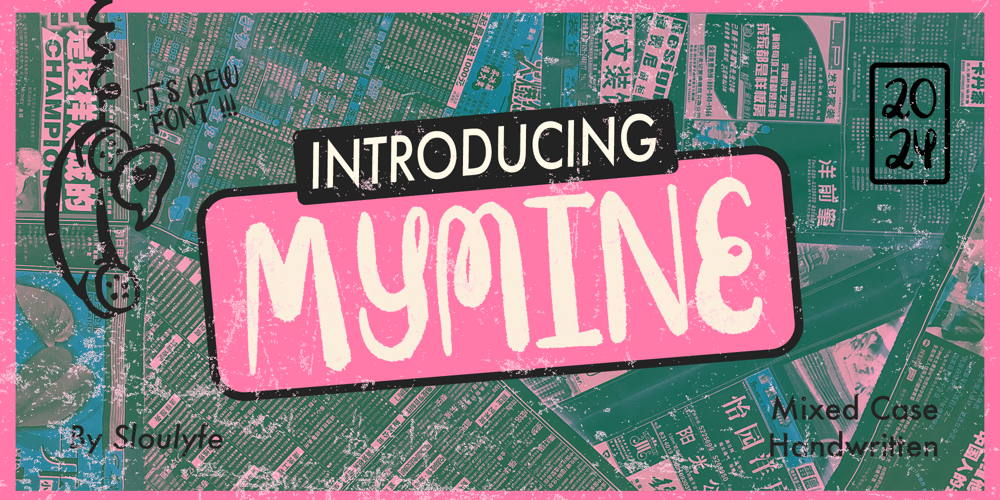
Mymine Font Family was designed by Amelia Dian Isnaini and published by Sloulyfe Studio. Mymine contains 1 styles and family package options. Nostalgic for 2000s texting? Mixing uppercase and lowercase was the cool thing to do. Wasn’t it fun?Introducing Mymine, the embodiment of that vibe. Organic handwritten display fonts that give you the freedom to play without restrictions. Express yourself without the worry of appearing tacky—still catchy!What’s inside? Uppercase & Lowercase Number & Punctuation Ligature Option PUA Encoded & Multilingual Support Stay catchy everyone!